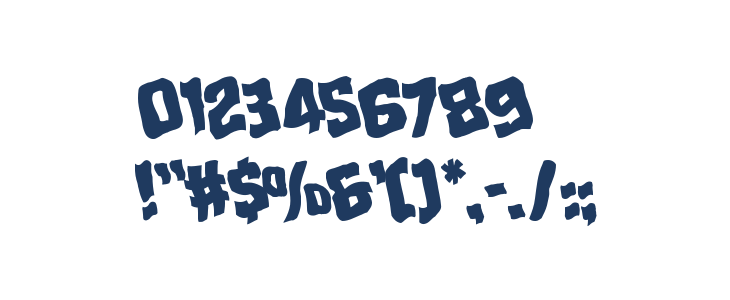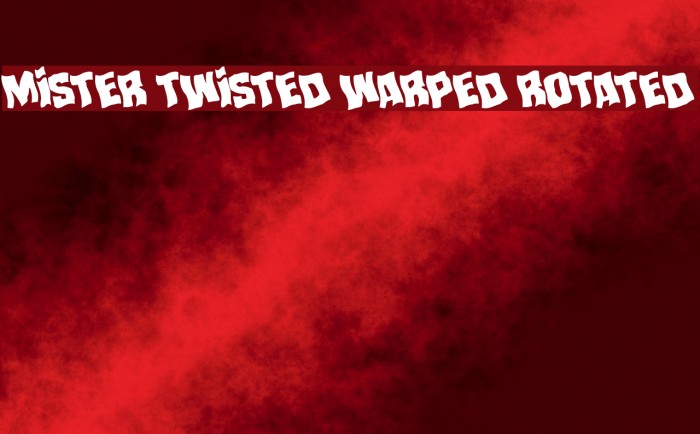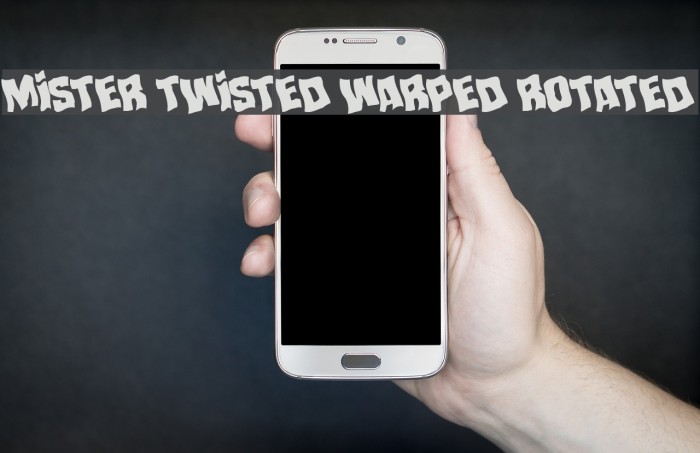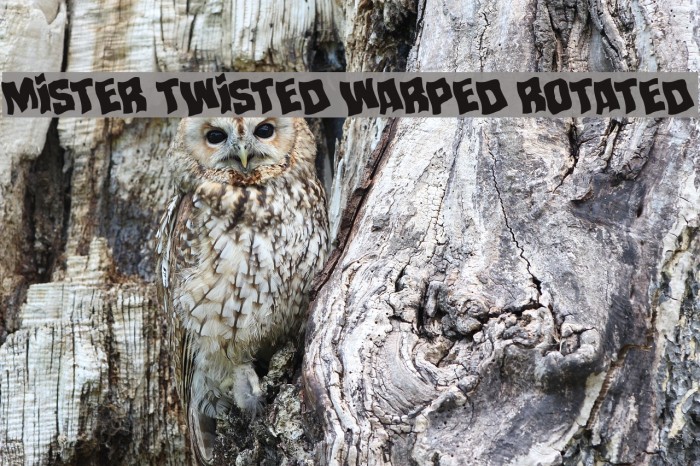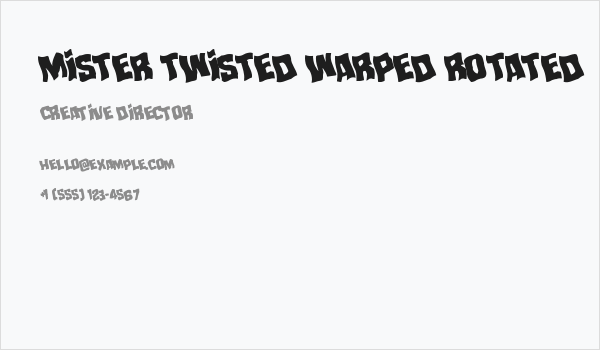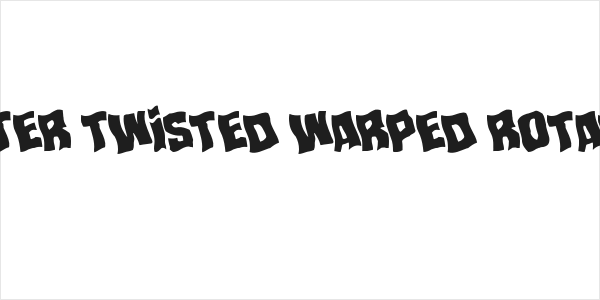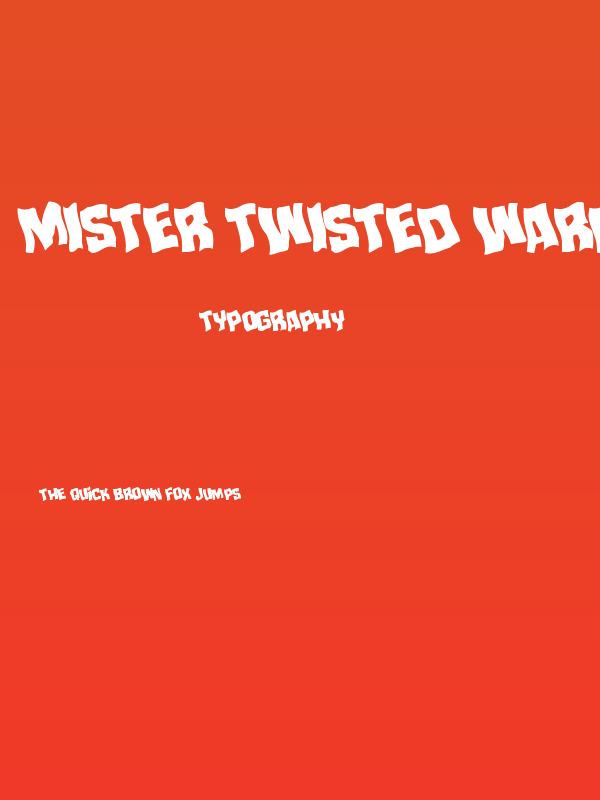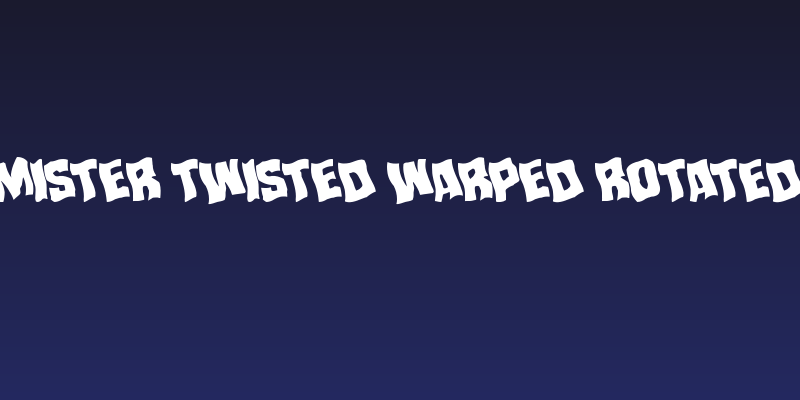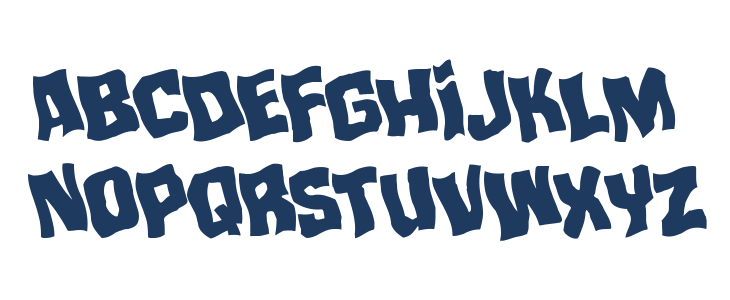
Mister Twisted Warped Rotated Font
Mister Twisted Warped Rotated Description
This font features a bold and dynamic design with a twisted and warped appearance, giving it a unique and playful character. The letters are heavily distorted, creating a sense of movement and energy. The irregular shapes and varying angles of the characters contribute to its distinctive style, making it stand out in any design. The font's boldness and exaggerated forms make it ideal for attention-grabbing headlines and creative projects that require a touch of whimsy and boldness.
Proposed ProjectsIdeal for posters, album covers, creative branding, and any project that requires a bold and unconventional typeface.